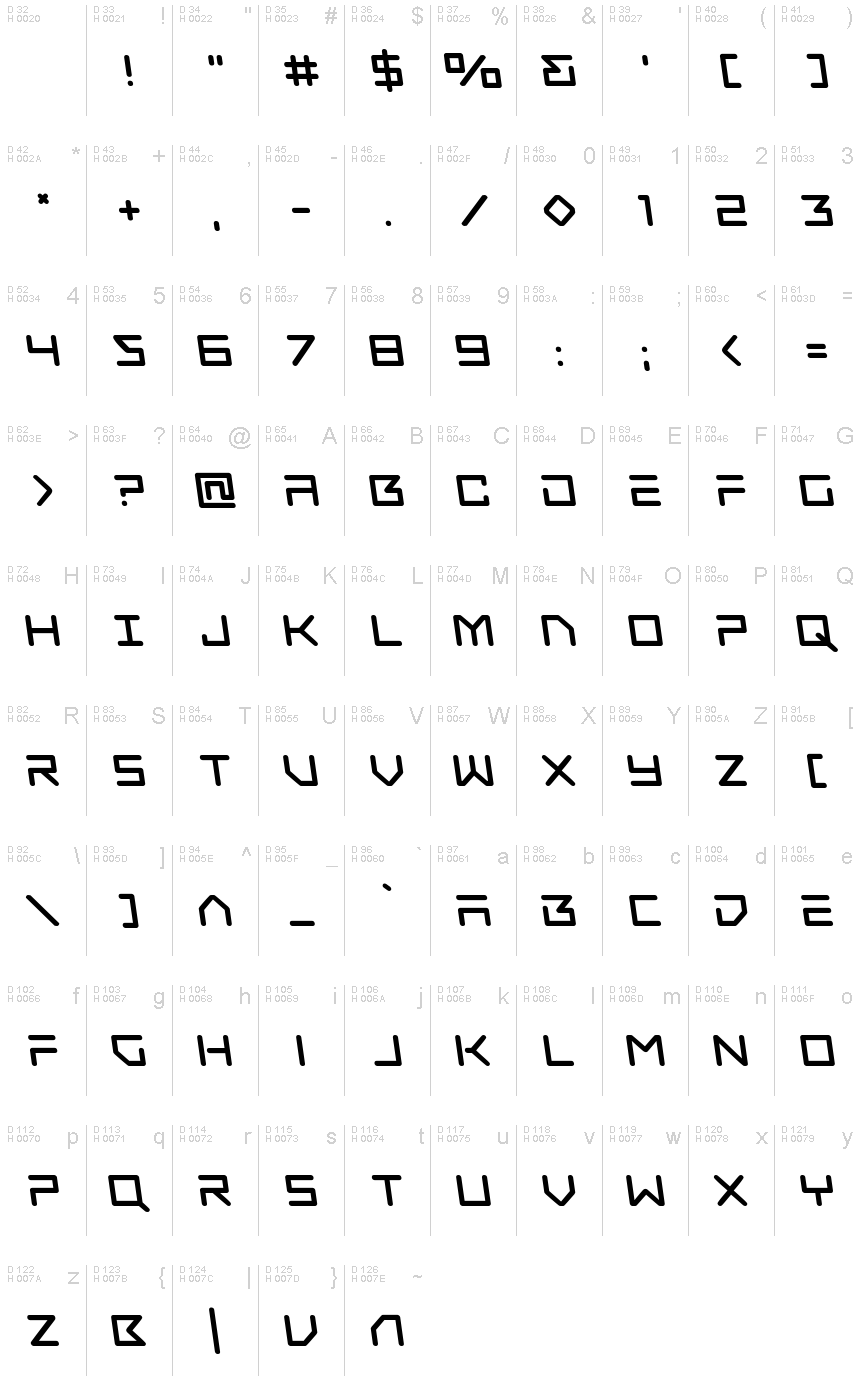
Tempest Apache Semi-Leftalic
Tempest Apache Semi-Leftalic font, from the Tempest Apache family by Iconian Fonts, embodies a striking futuristic aesthetic that captivates with its bold display style. This free font showcases a dynamic design with sharp, angular lines and distinctive slanted characters that create a sense of motion and innovation. Ideal for eye-catching headlines, logos, and creative projects, Tempest Apache Semi-Leftalic stands out in digital and print media.
Its sleek appearance makes it perfect for tech-themed designs or modern branding efforts. Designers looking to infuse their work with a cutting-edge vibe will find this free font an invaluable tool. Download the Tempest Apache Semi-Leftalic font now to elevate your next project with its unique flair and contemporary style.